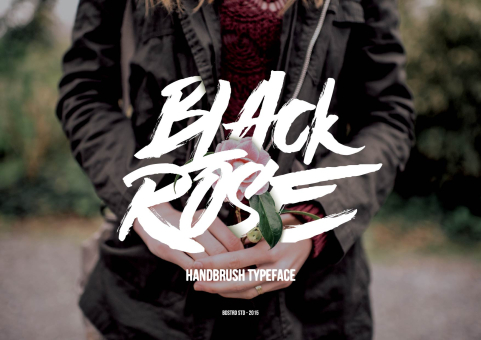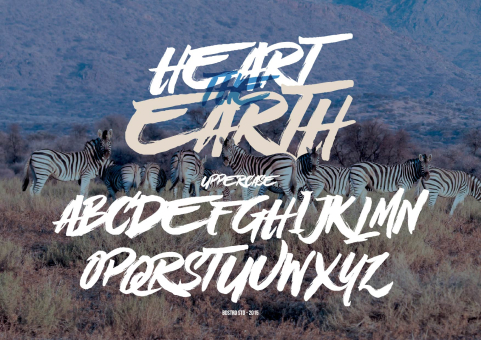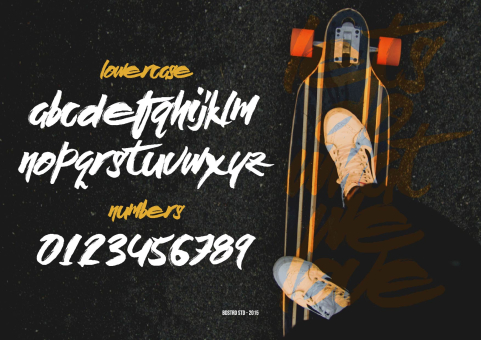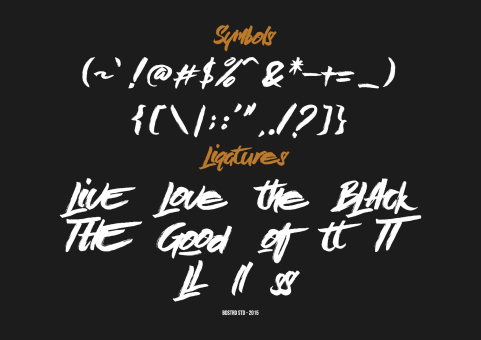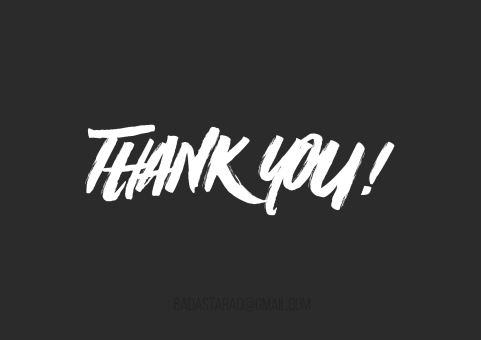
Black Rose
Black Rose Hand Brush hand lettering is a modern classic that can be used to design requirements that are sinister, frightening, horror, and other design requirements. Black Rose Handbrush can facilitate you to implement an idea that is handmade designs, especially typography.
Designer: Bdstrd Std .
Publisher: Bdstrd Std .